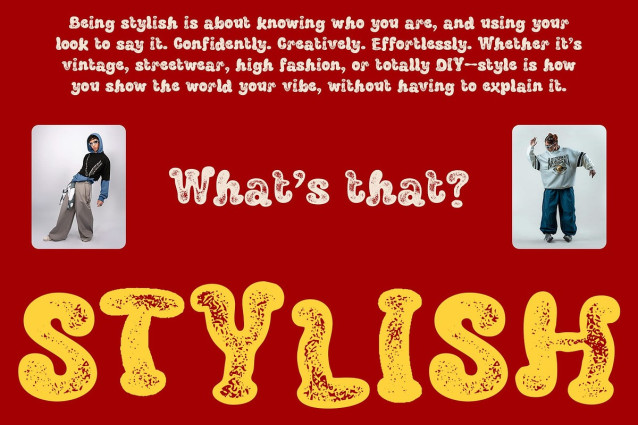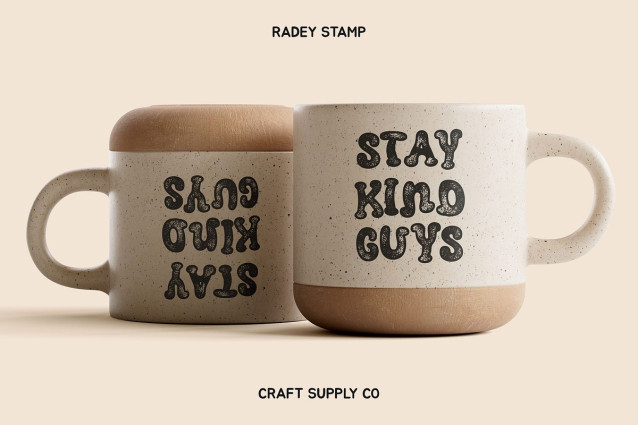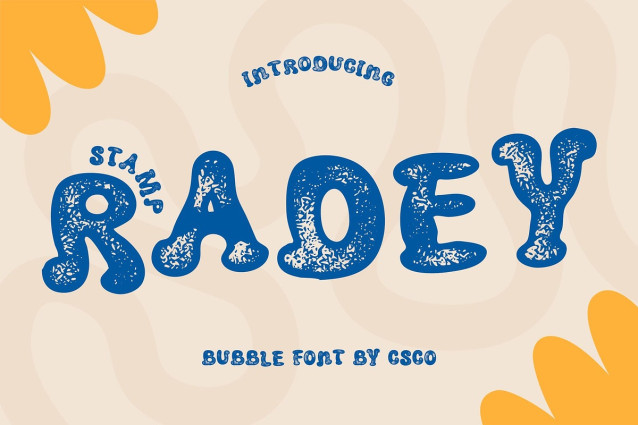
Radey Stamp Font
Radey Stamp Font is a display font that showcases bold, rounded bubble letterforms, bringing a vibrant and cheerful retro funky vibe to any design. Its soft, exaggerated curves and thick strokes create an inviting, approachable personality, perfect for projects that want to express fun, creativity, and a sense of nostalgia.
Authentic Vintage Feel through Distinctive Stamp Texture What truly makes Radey Stamp stand out is its unique stamp effect. This rough, textured finish emulates the imperfections of vintage printing techniques, adding warmth and a handcrafted quality to the font. The subtle distressing enhances the retro aesthetic while infusing a sense of authenticity and tactile charm.
Eye-Catching, Expressive, and Full of Character The combination of bold bubble shapes and the rough stamped texture results in a font that is both striking and full of personality. Radey Stamp commands attention with its playful yet confident style, making it ideal for designs that need to captivate audiences and leave a lasting impression.
Versatile for a Wide Range of Creative Applications Radey Stamp is perfect for posters, logos, packaging, and any creative projects seeking a strong visual statement. It works wonderfully in branding that aims to evoke joy and originality, promotional materials that stand out on crowded shelves, and designs that celebrate a fun, vintage-inspired aesthetic.